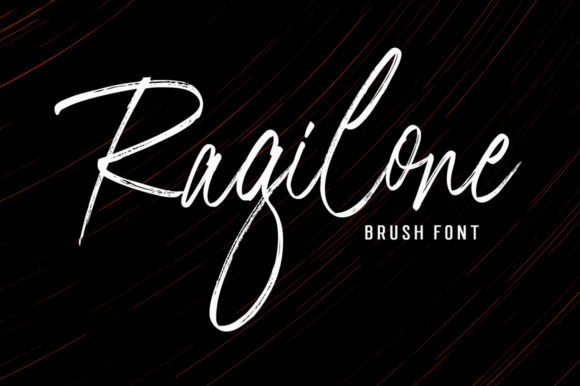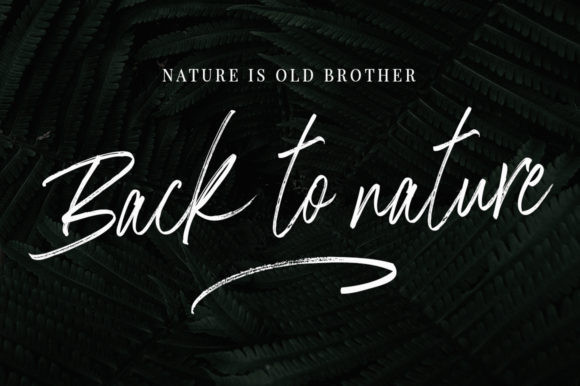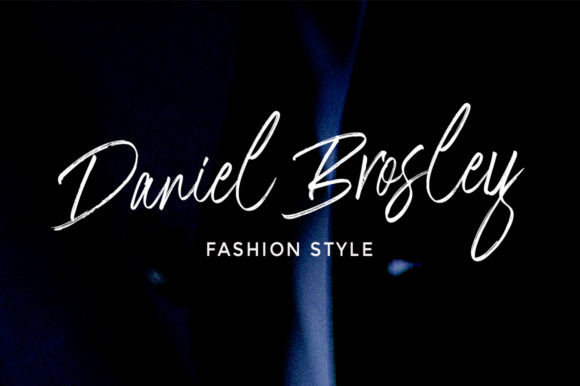
Ragilone Font
Ragilone results out of a stunning pairing of a brush pen and pencil that makes it look incredibly endearing and authentic. Use this gorgeous and unique handwritten font to bring any DIY project to life!